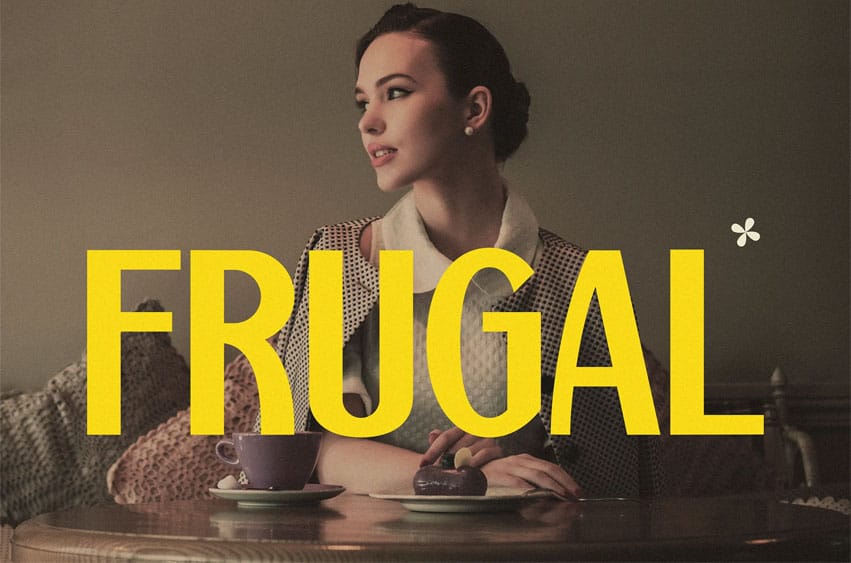
Frugal Font captures the beauty of restraint — a modern vintage typeface that blends confident structure with nostalgic warmth. Its clean geometric form, low contrast strokes, and subtly condensed proportions give it a distinctive editorial feel. With balanced spacing and solid presence, FRUGAL stands out in fashion magazines, café branding, or lifestyle packaging that values heritage and clarity.
This font radiates quiet sophistication — bold enough for headlines, yet refined for body text. Each curve feels deliberate, making it ideal for brands that express confidence through simplicity.
Designed for creative storytellers, FRUGAL elevates any project that seeks timeless charm with a modern edge. Whether you’re crafting a coffee label, fashion spread, or artisan poster, this typeface bridges past and present seamlessly. Its visual rhythm ensures your text feels approachable yet elevated — perfect for editorial design, boutique branding, or nostalgic ad campaigns.
Key Features: Elegant Letterform Design
- Geometric base with minimalist humanist touches
- Low contrast and tight kerning for modern clarity
Versatile in Application
- Ideal for editorial headlines, packaging, menus, posters, and visual identity projects
Functional Yet Emotional
- Communicates balance, warmth, and confidence — appealing to lifestyle and heritage aesthetics